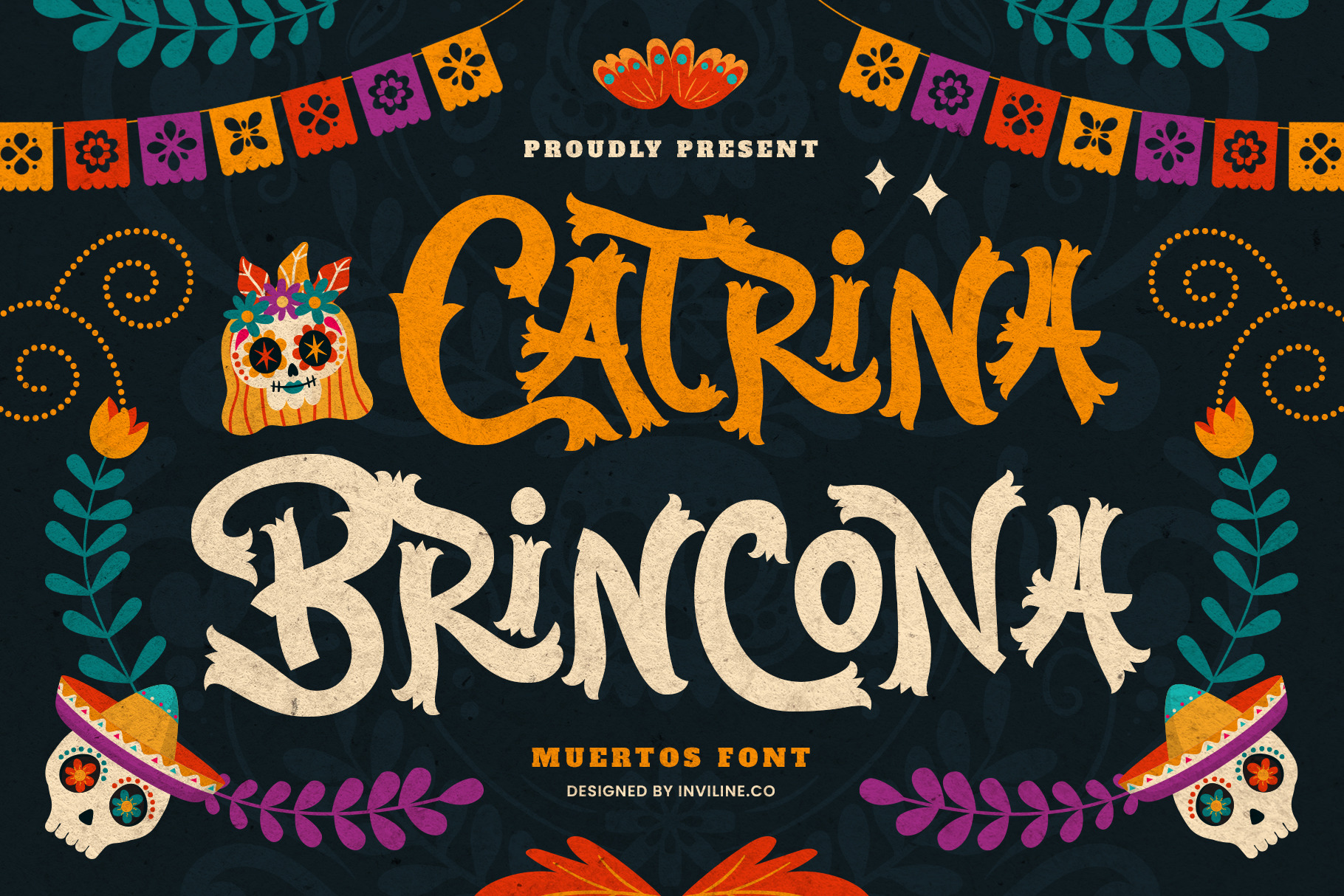
Catrina Brincona - Muertos Font
Catrina Brincona is an expressive display typeface inspired by the vibrant visual culture of Día de Muertos, Mexican folk art, papel picado, decorated calaveras, floral ornaments, and traditional celebration graphics.
Its bold handcrafted shapes, irregular edges, and playful decorative personality create typography that feels festive, artistic, and full of character. Catrina Brincona is designed for projects that need a strong cultural-inspired display style with warmth, energy, and visual impact.
Catrina Brincona combines bold display lettering with organic handcrafted details influenced by traditional Mexican celebration graphics. Its irregular shapes and expressive terminals give headlines and titles an illustrated quality while remaining readable at display sizes.
The typeface works especially well for Día de Muertos celebrations, festival posters, restaurant branding, food packaging, event graphics, invitations, merchandise, and cultural-themed editorial layouts.
Pair Catrina Brincona with colorful flowers, calavera illustrations, papel picado patterns, dark backgrounds, orange, purple, turquoise, cream, and other festive color combinations to build a lively visual system.
Catrina Brincona Muertos Display Font
Decorative handcrafted display letterforms
Día de Muertos-inspired display typography
Mexican folk-art visual influence
Bold handcrafted character shapes
Organic and slightly irregular edges
Expressive decorative terminals
Festive and playful personality
Strong readability at medium and large sizes
Ideal for headlines, logos, titles, and short phrases
Works beautifully with calavera, floral, papel picado, and festival graphics
Suitable for cultural events, food branding, merchandise, and posters
Easy to pair with simple serif or sans serif supporting fonts
Día de Muertos posters
Day of the Dead events
Mexican festival graphics
Cultural event branding
Restaurant branding
Mexican food packaging
Beverage labels
Taco shop branding
Festival invitations
Event posters
Party decorations
Merchandise graphics
T-shirt designs
Sticker designs
Greeting cards
Editorial headlines
Album artwork
Book covers
Logo and wordmark design
Product packaging
Tourism graphics
Cultural exhibitions
Festive signage
Folk-art-inspired branding
Use Catrina Brincona at medium or large sizes to showcase its expressive handcrafted details. It performs best for headlines, event titles, packaging names, posters, logos, and short phrases rather than long body text.
Pair it with a clean sans serif or classic serif font for descriptions, dates, menus, and supporting information.
For a stronger Día de Muertos aesthetic, combine the font with orange, cream, turquoise, purple, pink, floral motifs, papel picado patterns, skull illustrations, and textured dark backgrounds.